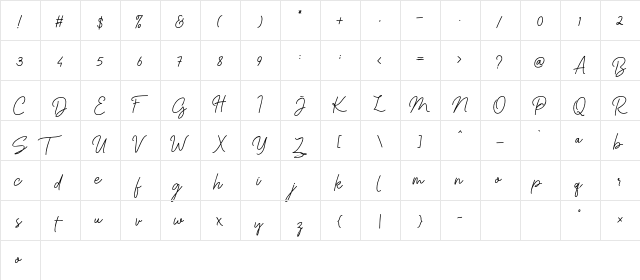
Haslley Demo Version Regular
| Foundry | Tacikworks |
| Designer | Ivan Yahya |
Design Context for Haslley Demo Version Typeface
Haslley Demo Version is a composed and adaptable typeface that performs quietly and consistently across a wide range of design contexts.